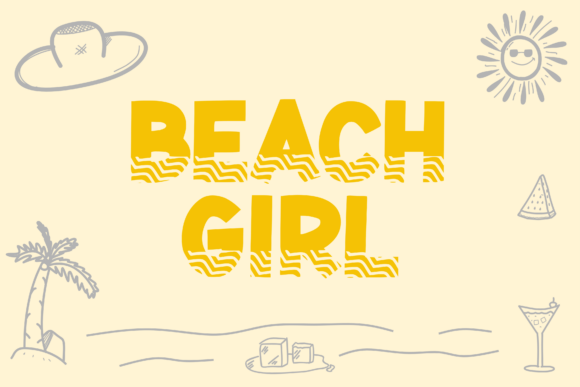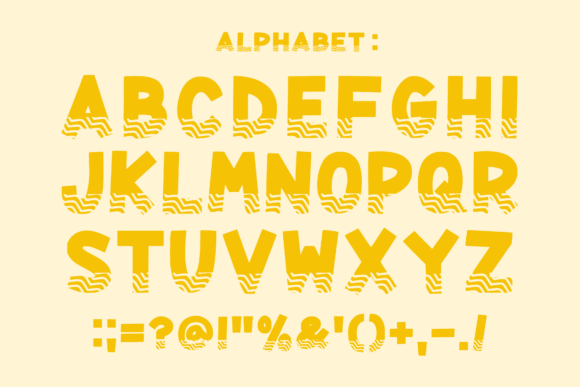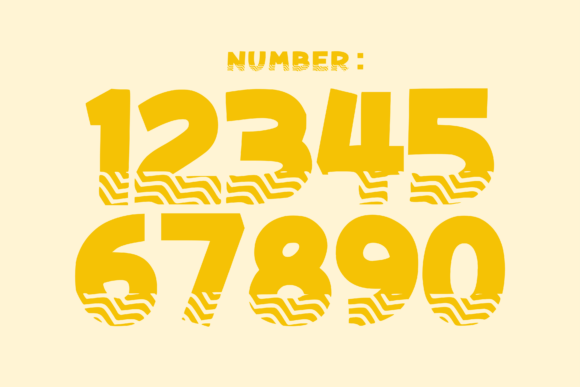
Introducing Beautiful Summer: The Ultimate Font for Vibrant Designs
Are you tired of using the same old fonts for your summer-themed designs? Look no further! We’re excited to introduce “Beautiful Summer,” a stunning, summertime-inspired font that’s sure to elevate your creative projects. This exceptional typeface is perfect for designers, crafters, and anyone looking to add a dash of fun and vibrancy to their work.
What Makes Beautiful Summer Special?
“Beautiful Summer” is more than just a font – it’s an experience. Imagine the warmth of a summer sun, the excitement of a comic book, and the playfulness of a sticker or greeting card. This original typeface captures the essence of summer, bringing a unique and refreshing style to your designs. Whether you’re working on a comic book, sticker, banner, greeting card, or t-shirt screen print, “Beautiful Summer” is the perfect companion.
The versatility of “Beautiful Summer” is one of its most appealing features. This font can be used in a wide range of design projects, including:
- Comic books: Add a pop of personality to your comic book characters and storylines.
- Stickers: Create eye-catching stickers that are perfect for laptops, water bottles, or any other surface.
- Banners: Design vibrant banners that grab attention and make a statement.
- Greeting cards: Add a touch of summer fun to your greeting cards and make them stand out.
- T-shirt screen prints: Create unique and stylish t-shirt designs that are perfect for summer.
Why Choose Beautiful Summer?
So, what sets “Beautiful Summer” apart from other fonts? Here are just a few reasons why designers and crafters love this font:
- Unique style: “Beautiful Summer” boasts a standout style that’s sure to grab attention.
- Vibrant energy: This font infuses your designs with a lively, summer energy that’s perfect for warm-weather projects.
- Creative freedom: With “Beautiful Summer,” you can experiment with a wide range of design possibilities, from bold and playful to soft and whimsical.
- Ease of use: This font is easy to read and works well in both digital and print formats.
Tips for Using Beautiful Summer
To get the most out of “Beautiful Summer,” here are a few tips to keep in mind:
- Experiment with colors: Summer is all about bright, bold colors. Try pairing “Beautiful Summer” with a vibrant color palette to really make your design pop.
- Play with textures: Add some texture to your design by incorporating patterns, gradients, or other visual elements.
- Mix and match: Don’t be afraid to combine “Beautiful Summer” with other fonts or design elements to create a unique look.
“Beautiful Summer” is more than just a font – it’s a design experience. With its unique style, vibrant energy, and endless design possibilities, this exceptional typeface is sure to elevate your creative projects. Whether you’re a designer, crafter, or simply someone who loves to create, “Beautiful Summer” is the perfect companion for your summer designs. So why wait? Discover the beauty of “Beautiful Summer” today and let your creativity blossom!